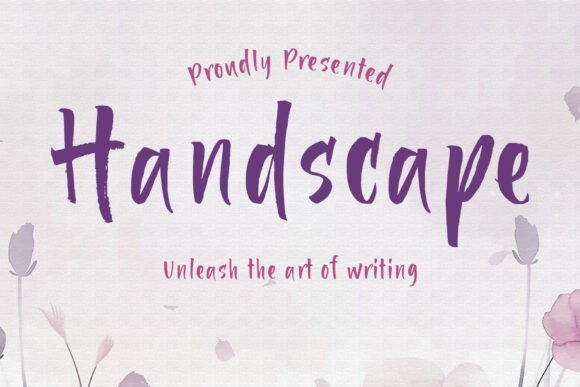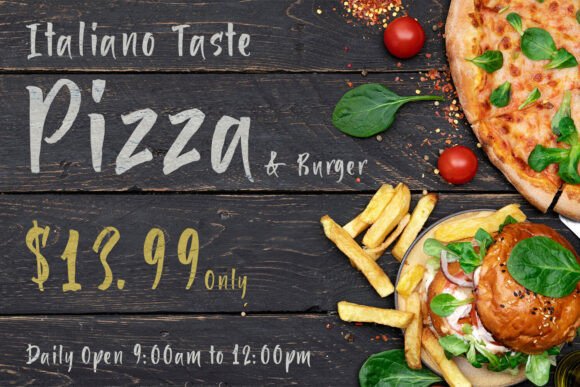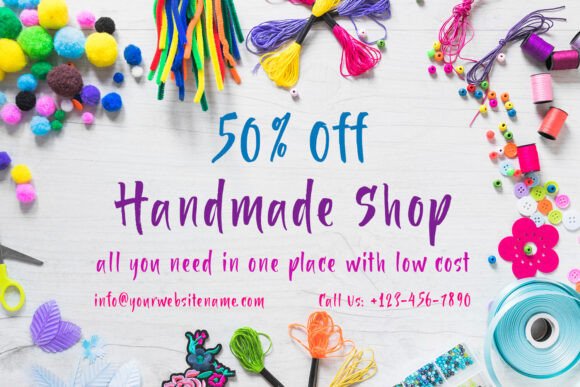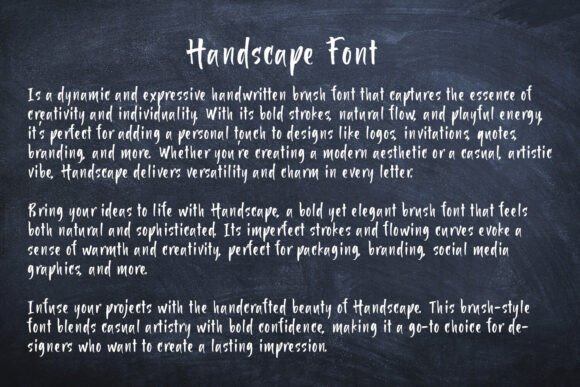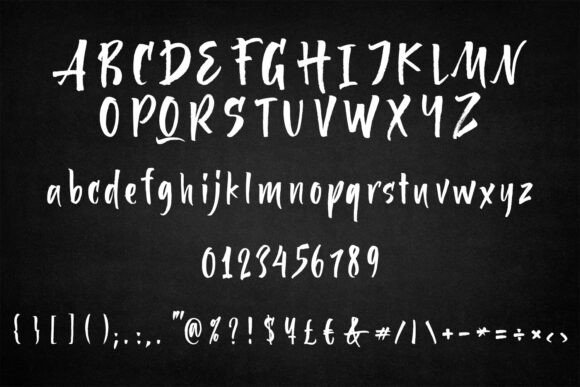
The Perfect Brush Stroke: Unlocking the Power of Handscape Font
Have you ever sat down with a blank canvas, feeling the urge to create something truly unique and personal? The blank page can be both a blessing and a curse – it’s a clean slate, full of endless possibilities, but also a daunting reminder of the blank canvas staring back at you. This is where the Handscape Font comes in – a bold and creative handwritten brush font that’s designed to bring your ideas to life.
With its natural brush strokes and expressive style, Handscape Font is the perfect addition to any design project. Whether you’re working on a logo, branding, invitation, or social media graphic, this versatile typeface is sure to add a touch of personality and charm to your work. Its handcrafted style makes it a favorite among designers looking to create modern, trendy, and casual aesthetics that truly stand out from the crowd.
Handscape Font Key Features
- Unique Characteristics: Handscape Font features a unique blend of modern and organic elements, with distinctive letterforms and subtle texture, making it ideal for creative and design-driven projects.
- Kerning and Ligatures: Handscape Font includes advanced kerning and ligature features, ensuring smooth and precise text rendering, even in complex layouts.
Handscape Font Review
I’ve had the chance to work with the Handscape Font, and I must say it’s a unique and interesting addition to any design project. ✨ One of the things that works well with this font is its natural, hand-drawn feel. It adds a touch of personality to any text, making it perfect for creative projects or branding that wants to stand out.
Another advantage of Handscape Font is its legibility. ✨ Even in smaller font sizes, the letters remain clear and easy to read, which is essential for any font that’s going to be used in body text or headings.
- ⚠️ Limited font sizes: Handscape Font may not be the best choice for very large or very small font sizes, as the quality of the font may degrade.
- ⚠️ Limited language support: Handscape Font may not support all languages, which could be a limitation for international projects.
- ⚠️ Limited character set: Handscape Font may not include all the characters you need for your project, which could require additional font licensing.
Overall, I think Handscape Font is a great choice for designers who want to add a touch of personality to their projects. It’s perfect for creative projects, branding, or any project that wants to stand out from the crowd. However, it may not be the best choice for projects that require a large font size, multiple languages, or a full character set.
Getting the Most Out of Handscape Font
To get the most out of Handscape Font, try using it in creative ways, such as:
– Creating a custom logo or branding for your business
– Designing a unique and eye-catching poster or flyer
– Adding a personal touch to your social media graphics
Handscape Font is perfect for:
– Creative projects that require a unique and stylish font
– Personal branding and identity design
– Designing eye-catching graphics and posters
Alternatives to Handscape Font for Designers
Great Vibes Font is a modern calligraphy font that is perfect for creating elegant and sophisticated designs. It features a beautiful script style with swashes and ligatures, making it ideal for invitations, weddings, and other high-end events. Compared to Handscape Font, Great Vibes Font has a more refined and polished look, making it suitable for formal designs.
Does the Handscape Font support ligatures and contextual alternates?
Yes, the Handscape Font includes ligatures and contextual alternates, which are designed to improve the readability and aesthetics of text. These features are supported in OpenType-enabled design software, such as Adobe Creative Cloud applications.